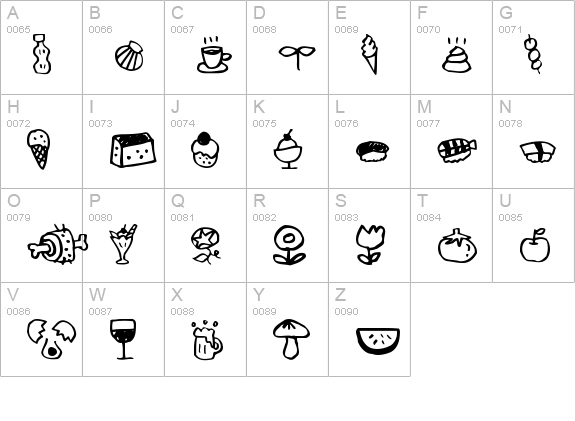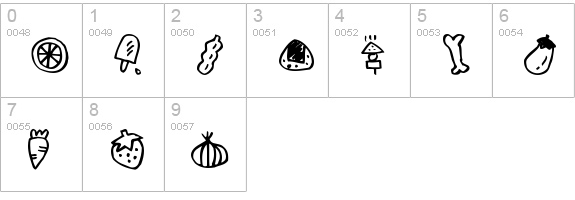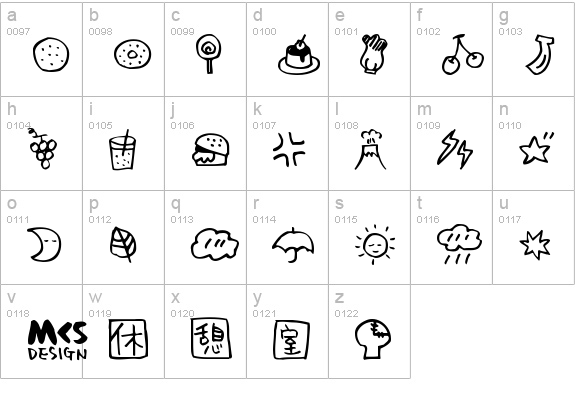
HolidayBi Font Details
HolidayBi font is a whimsical and playful typeface that exudes a festive and joyful vibe. Its rounded edges and smooth curves give off a friendly and welcoming feel, making it perfect for holiday-themed designs and projects. Whether you're creating greeting cards, party invitations, or seasonal advertisements, HolidayBi font will add a touch of charm and cheer to your designs. What makes HolidayBi font even more appealing is that it is available for free download at FontsMarket.com. This means you can easily access and use this delightful font in your creative endeavors without any cost. So go ahead and give your projects a festive flair with HolidayBi font - download it now and spread the holiday cheer!